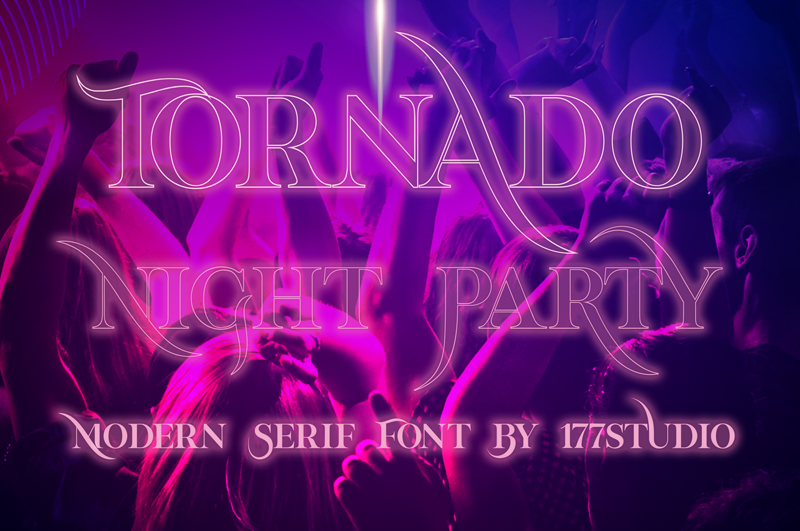
Tornado � Modern Serif Font is a classic style serif typeface that has been modernised with its unique curves and cut-ins making it one of the most memorable caps fonts on the market. This versatile font can be used for Wordmark Logos, Mastheads, Pull Quotes & Monograms showing both feminine and masculine qualities. This font is free only for Personal use You can buy full license from our store for more our fonts: https://www.creativefabrica.com/product/tornado-night-party/ref/378978/ https://177studio.com/product/tornado-modern-serif-font/ https://gumroad.com/l/TpXBNl Also check out for free demo: https://befonts.com/author/177studio https://www.dafont.com/kenz.d8820 if you have any problem, let we know by email: admin@177studio.com |